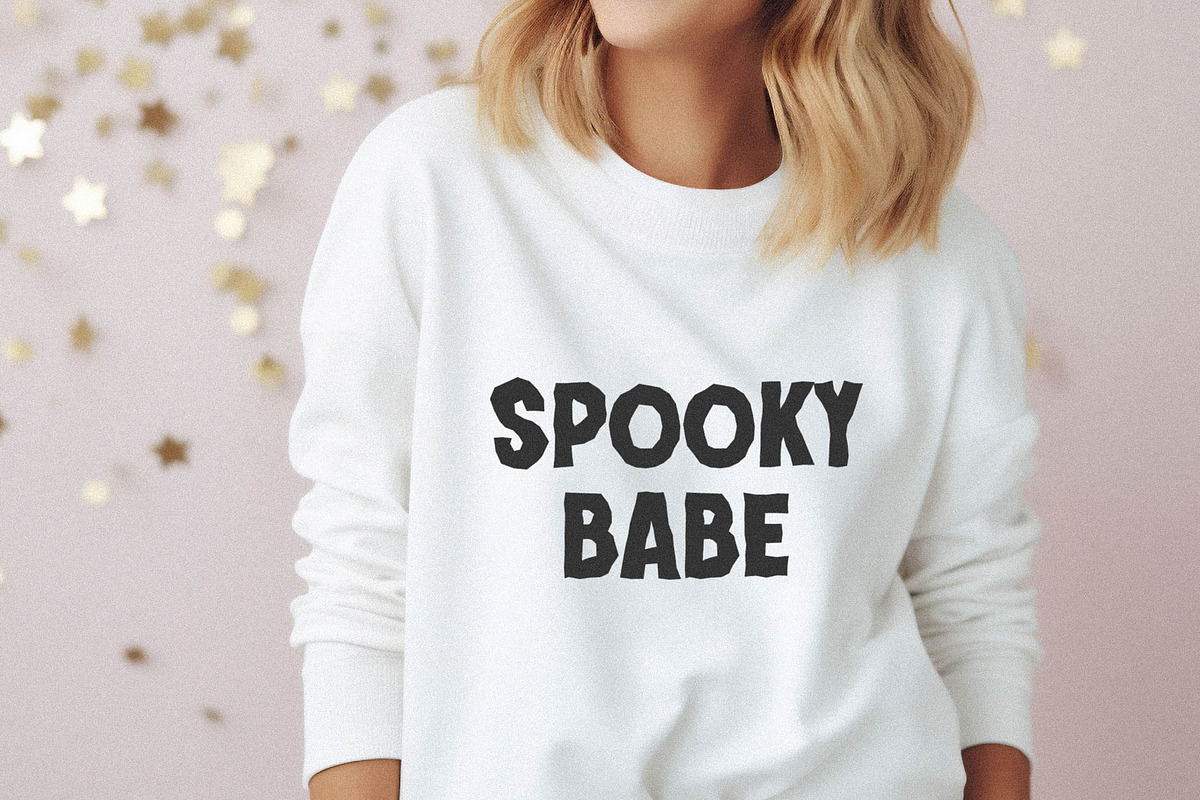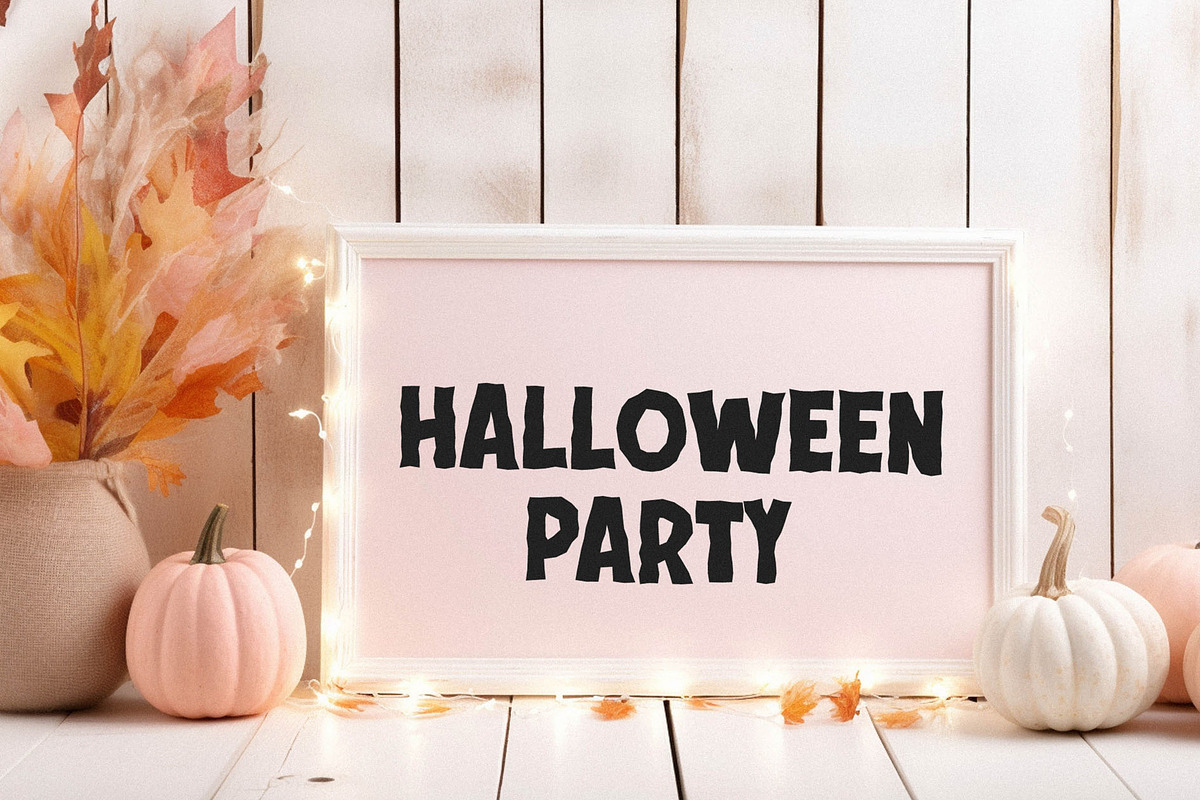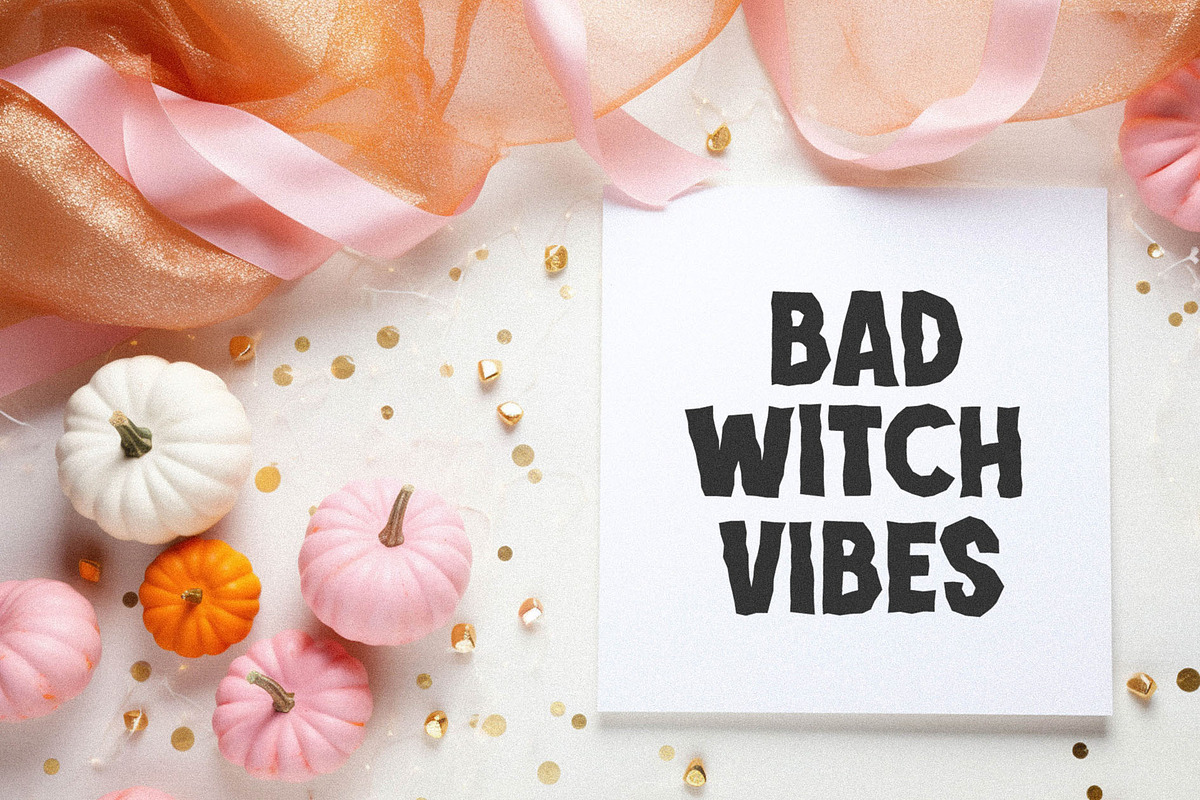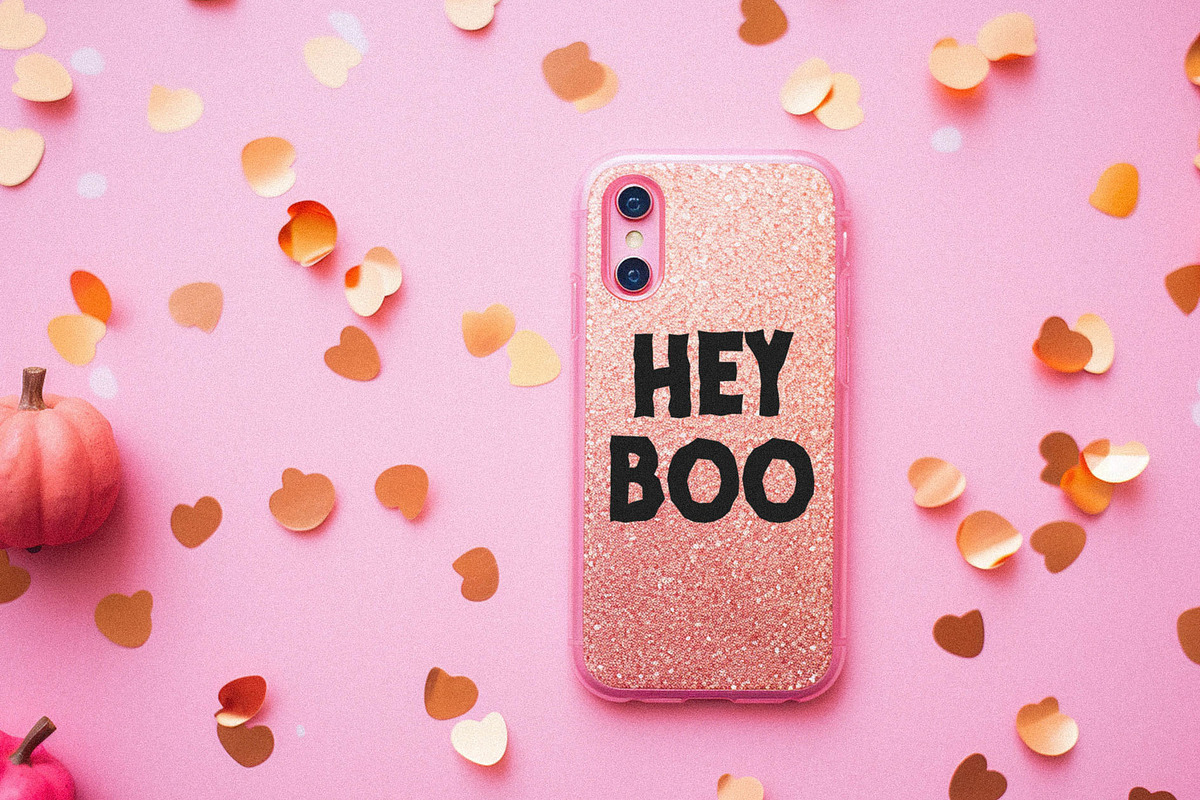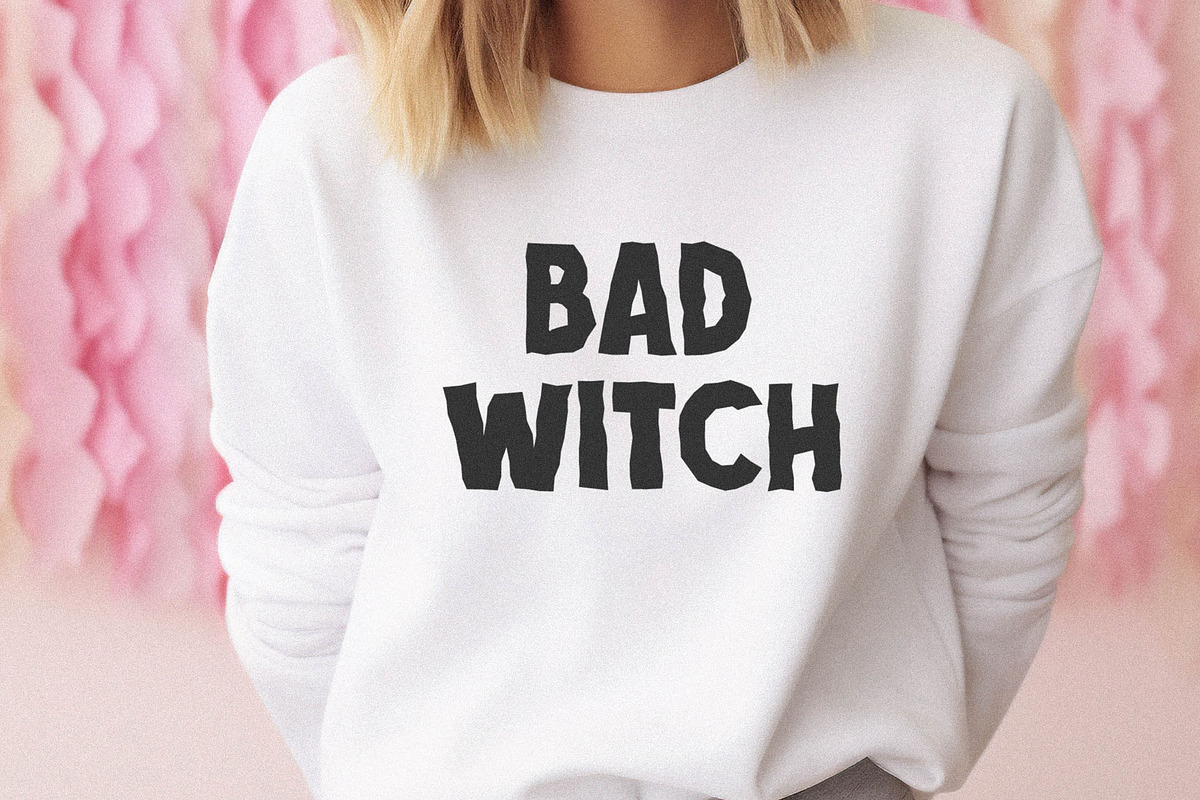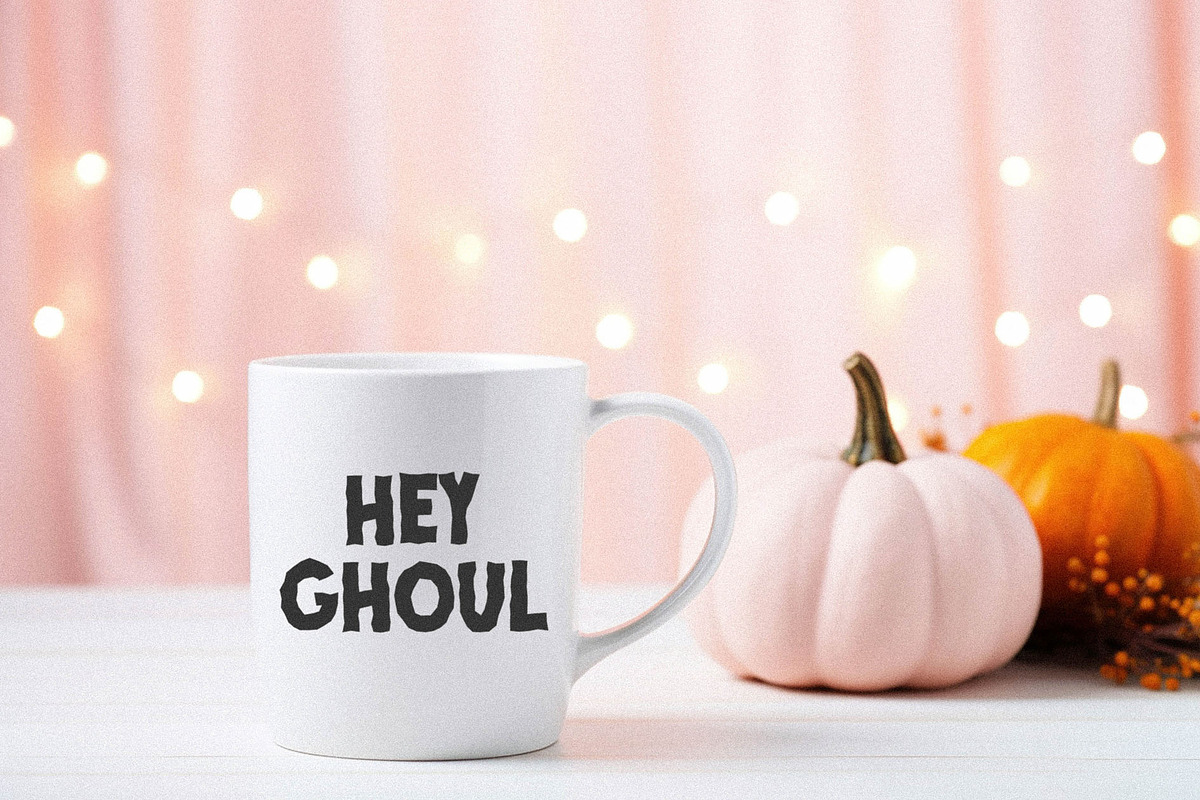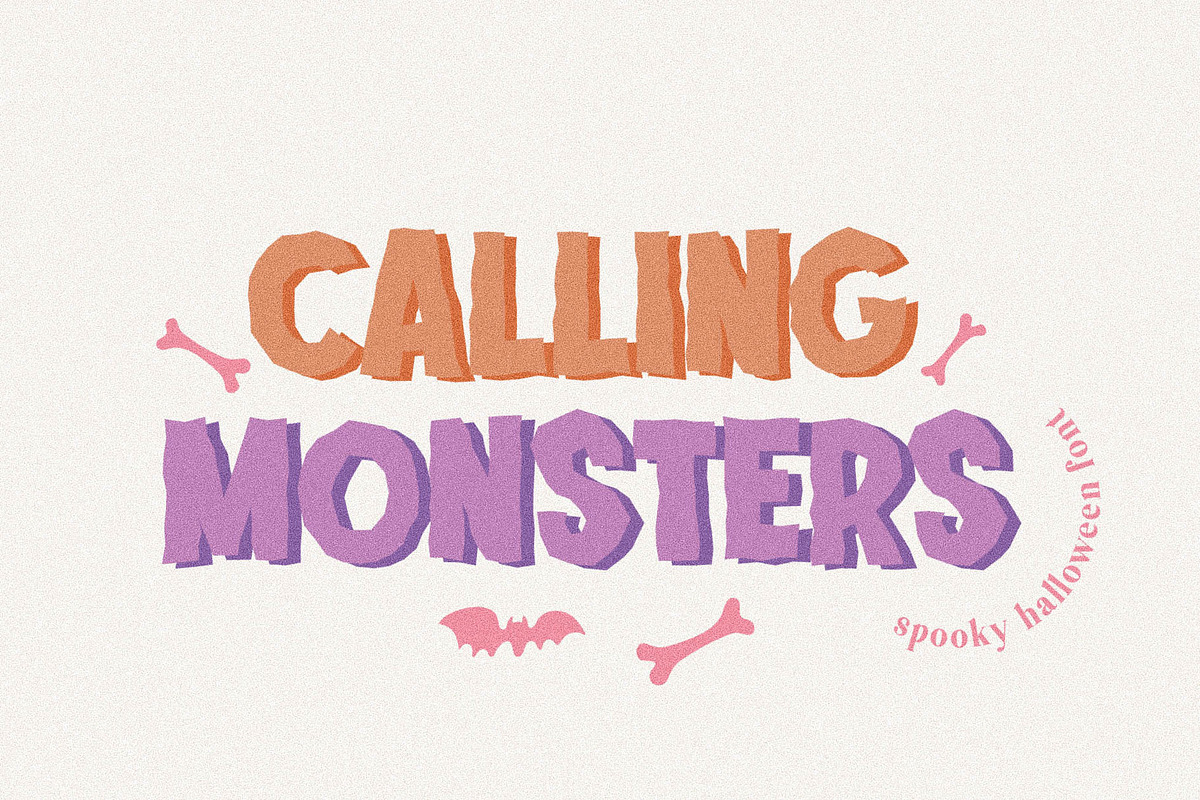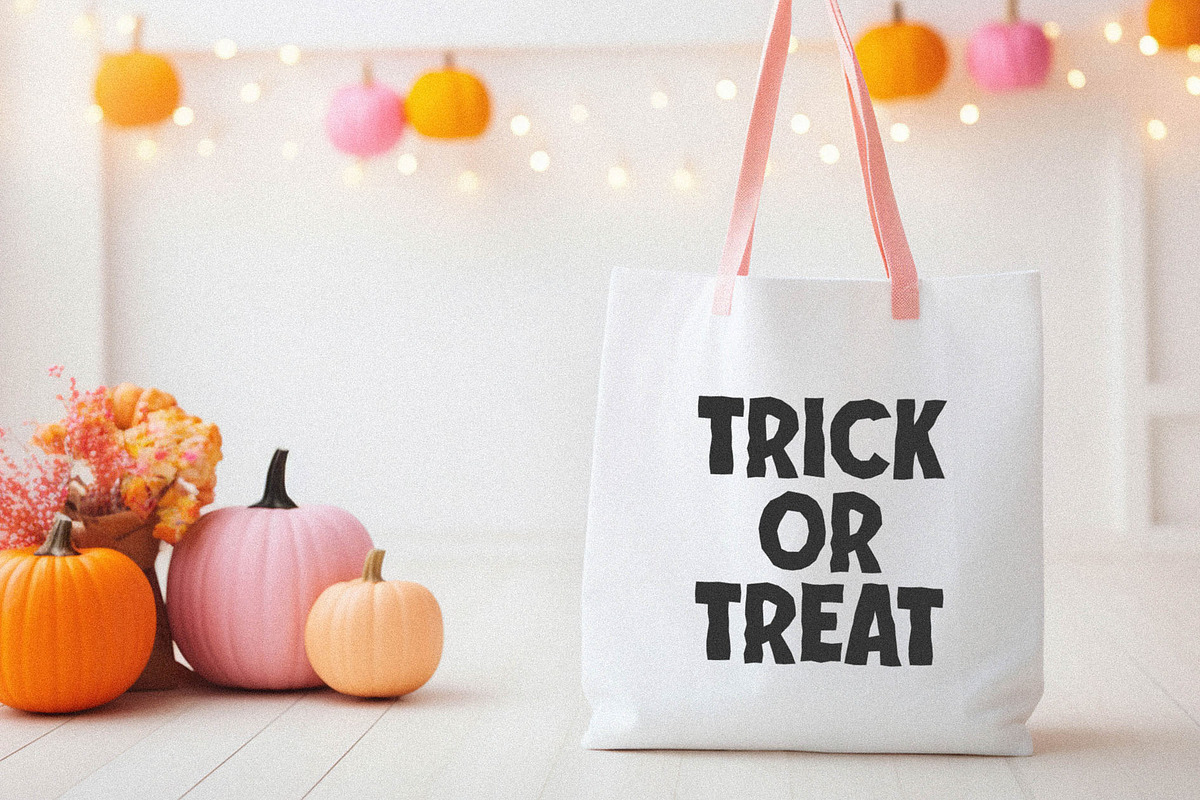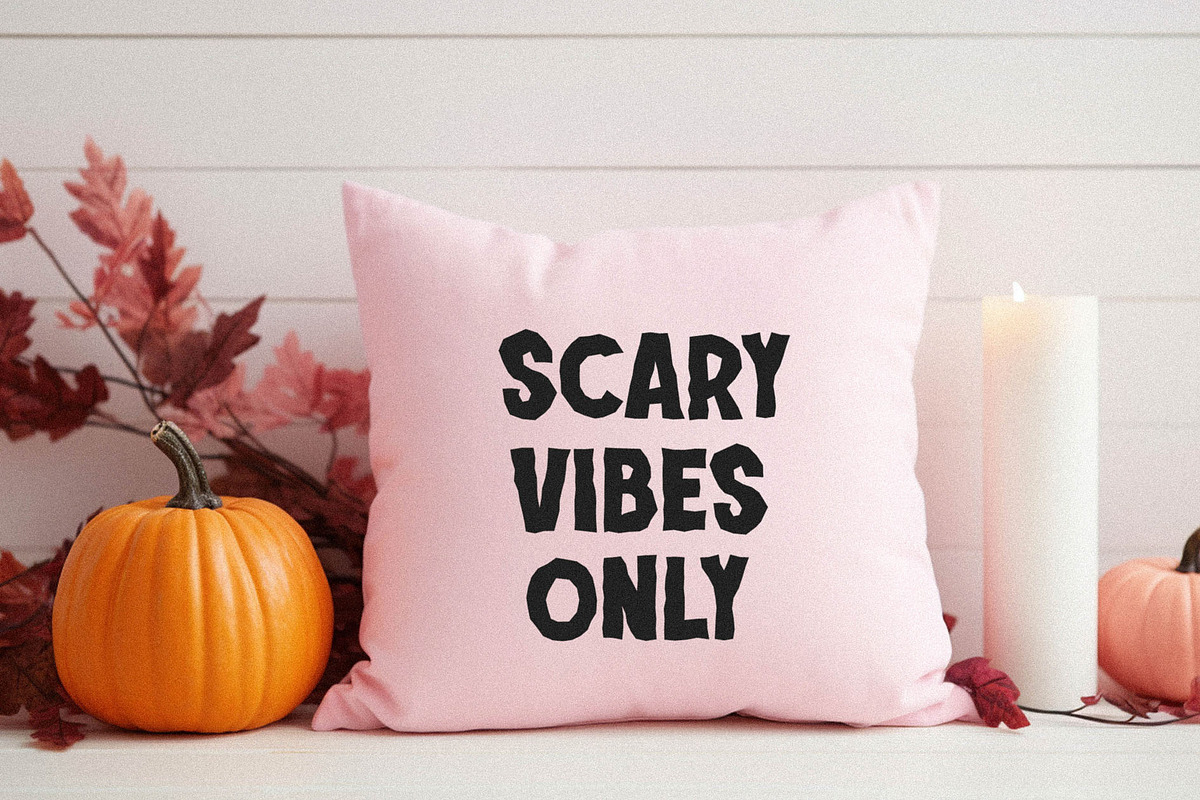
Calling Monsters Spooky Halloween Fo
Calling Monsters Halloween Font - groovy handwritten font for crafters and designers.
Perfect to create:
Halloween Party Invitations: Create eye-catching invitations for halloween parties or events.
DIY Halloween Decorations:Create your own decorations like banners, stickers, signs, wall posters, pillows, mugs for your home or party venue.
Craft Projects:Design craft projects such as scrapbooking, cricut projects, sublimation designs.
T-shirt Designs: Print halloween-themed t-shirts with spooky or fun messages.
School Projects: Enhance school presentations or projects related to halloween theme.
Social Media Graphics: Design attention-grabbing halloween-themed posts for your social media accounts.
Trick-or-Treat Bags and Labels: Design custom labels and bags for trick-or-treaters, making them more appealing and thematic.